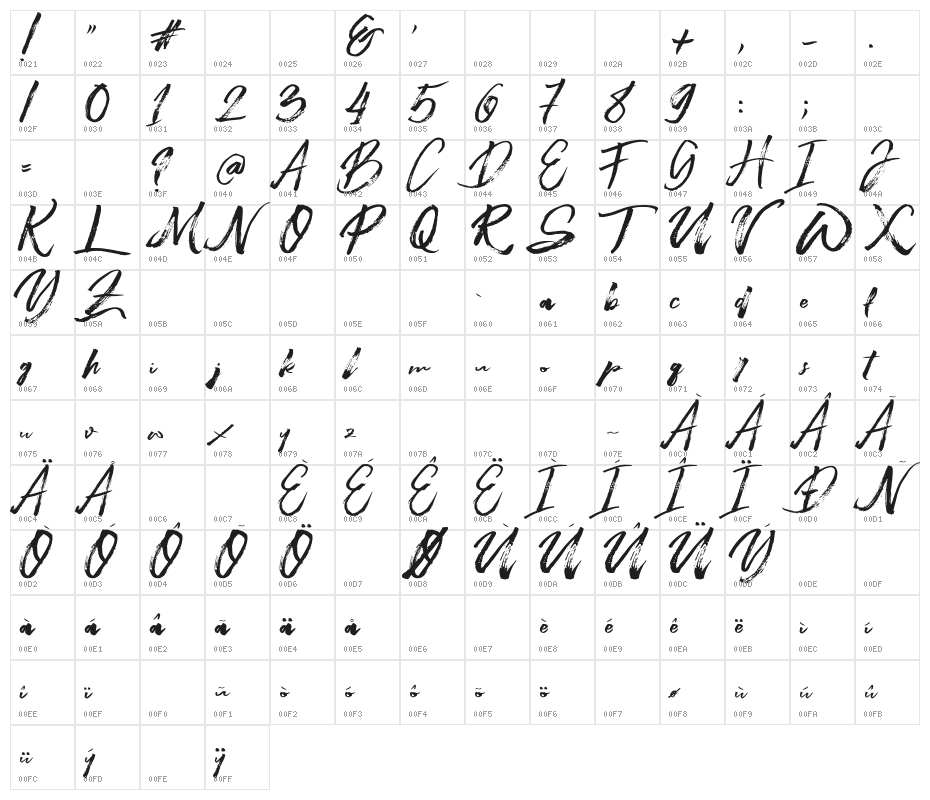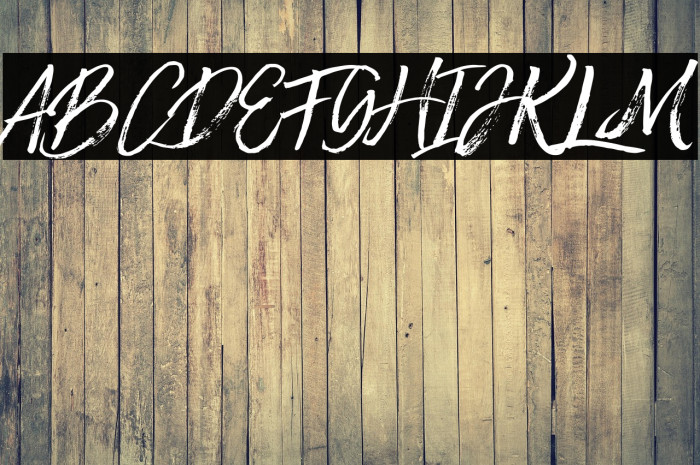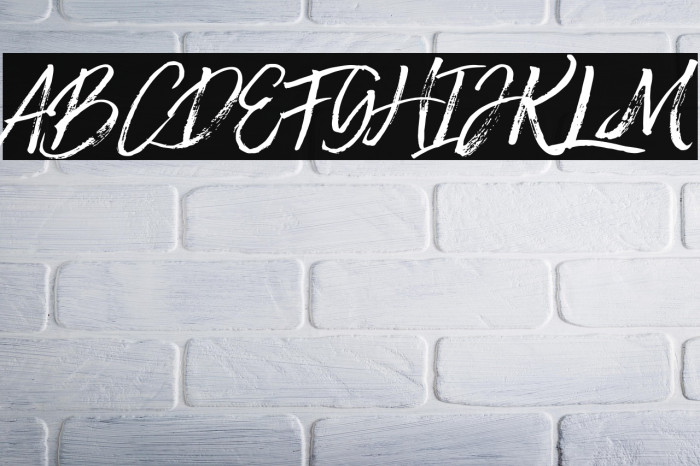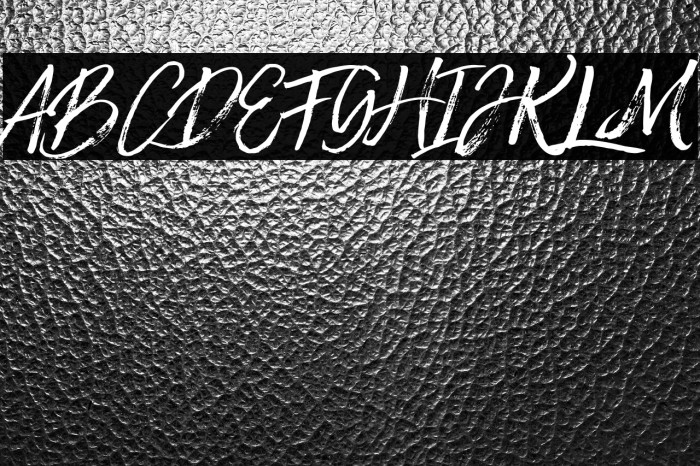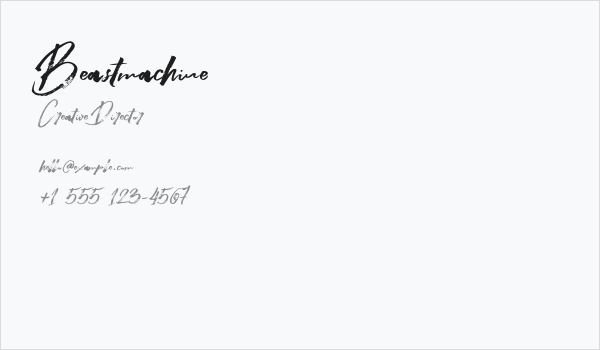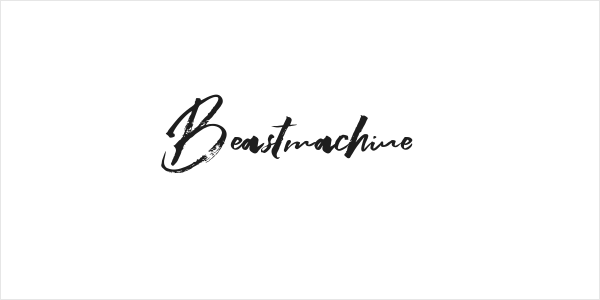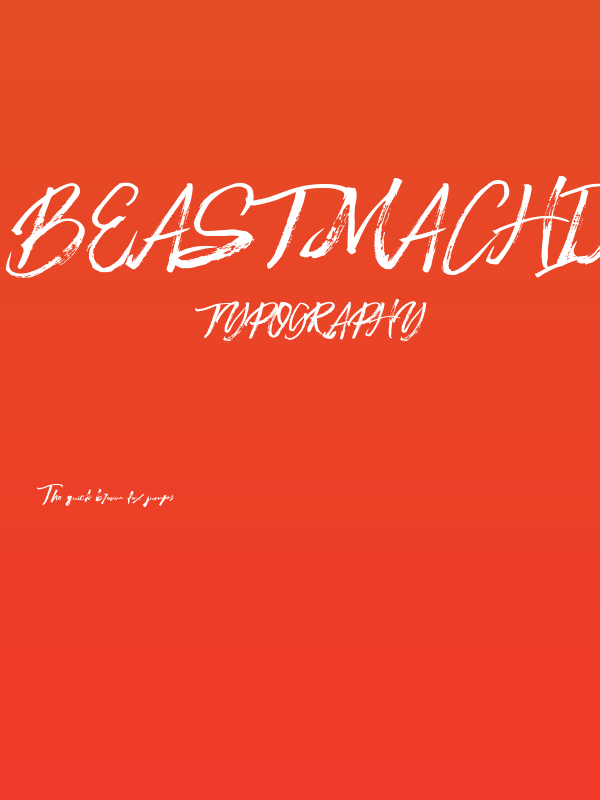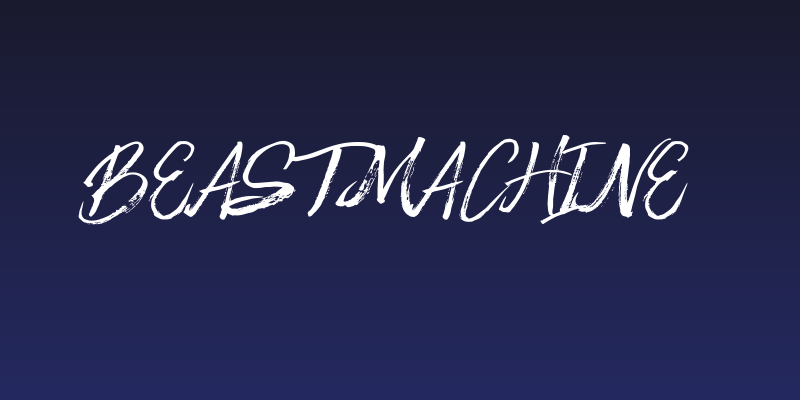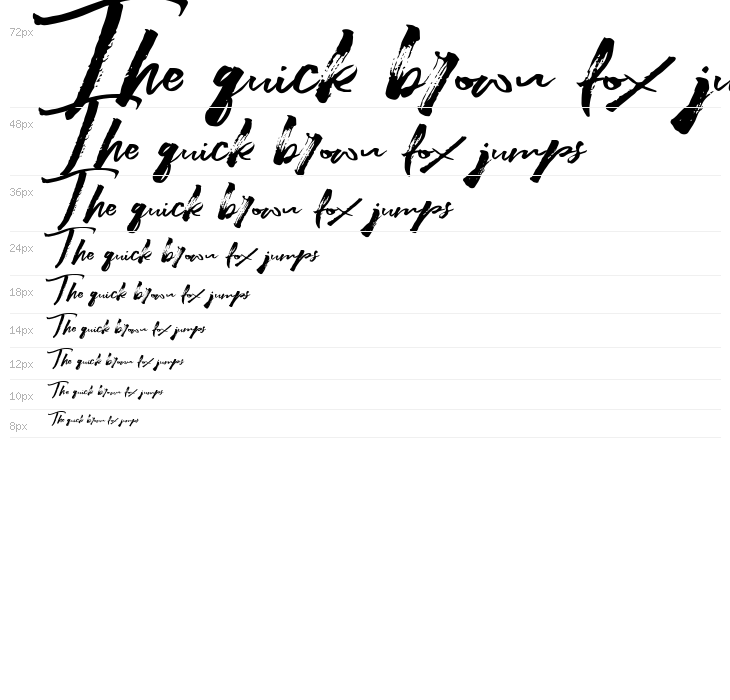
Beastmachine Font
Beastmachine Description
This font features a bold, expressive brush script style with a dynamic and energetic appearance. The strokes are thick and textured, giving a hand-painted feel that is both artistic and spontaneous. The uppercase letters are particularly striking, with a sense of movement and flair, while the lowercase letters maintain a consistent flow. Numbers and special characters are equally bold and maintain the same brushstroke aesthetic, making them stand out. The overall design is perfect for projects that require a strong visual impact and a touch of creativity.
| Proposed Projects | Ideal for branding, posters, album covers, and any creative project needing a bold statement. |